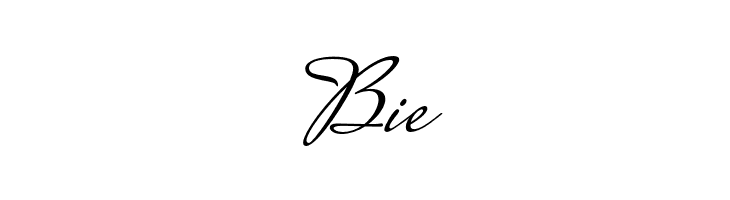
A bold, cursive script font with dynamic and flowing characters.
A dynamic, expressive handwritten font with fluid strokes and playful character.
An elegant, flowing script font with intricate loops and flourishes.
An elegant, flowing script font with a classic, handwritten style.
A bold, flowing script font with elegant, connected characters.
An elegant script font with flowing, cursive letterforms and a sophisticated style.
A bold, cursive font with dynamic, sweeping strokes and fluid connections.